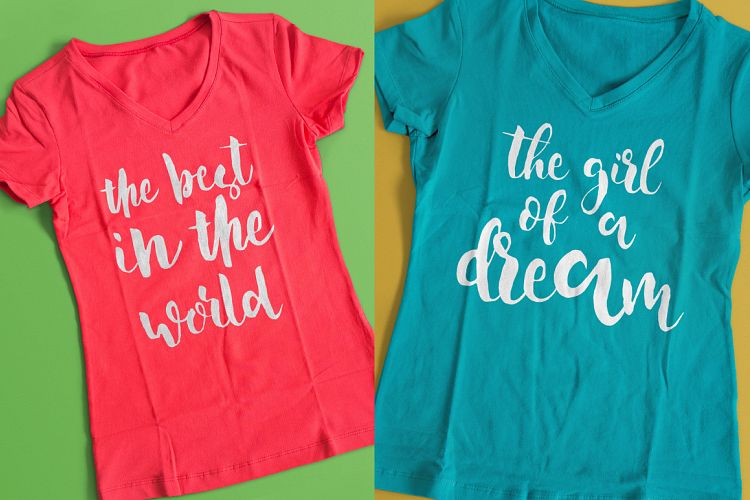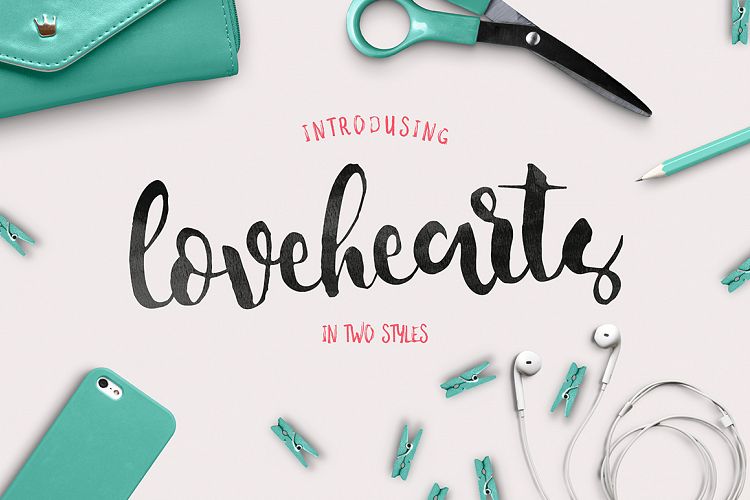
Lovehearts Script Font
I represent to your attention an incredible 100% handwritten font. Very suitable for the design of logos, creation of invitations, greeting card and more.